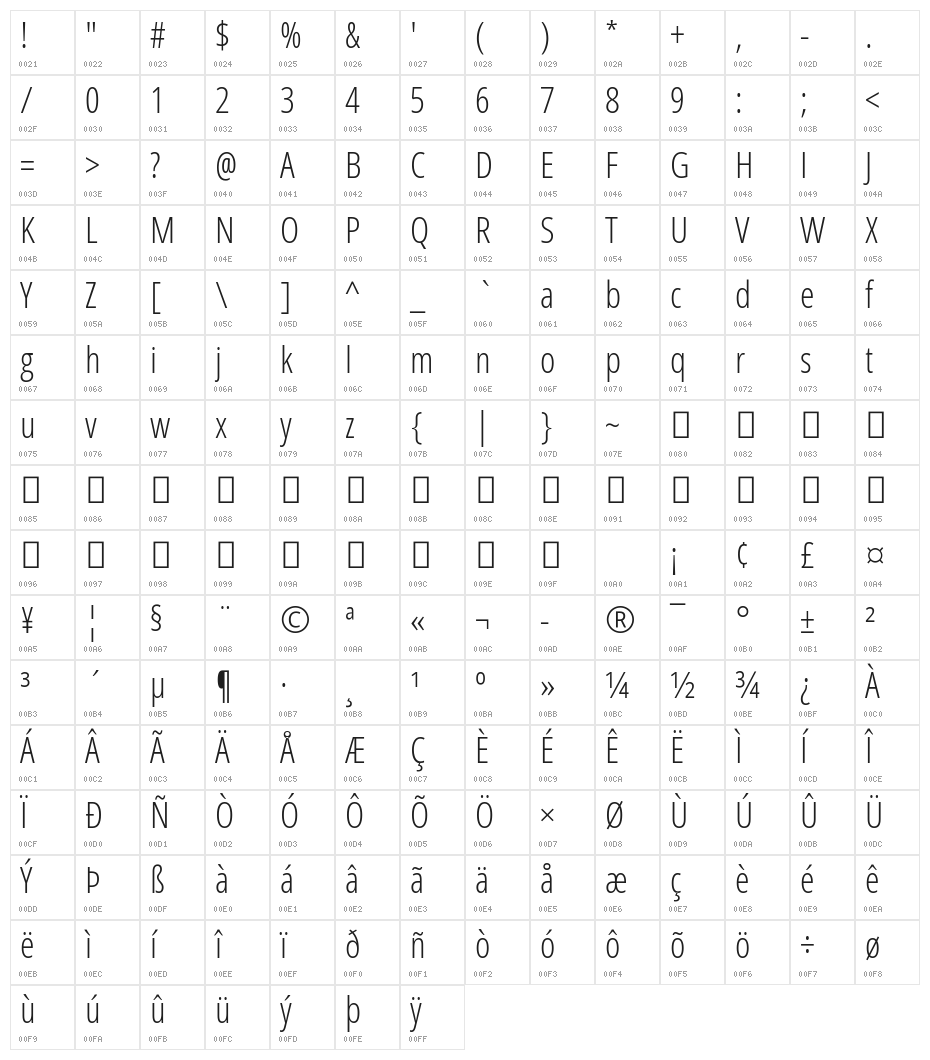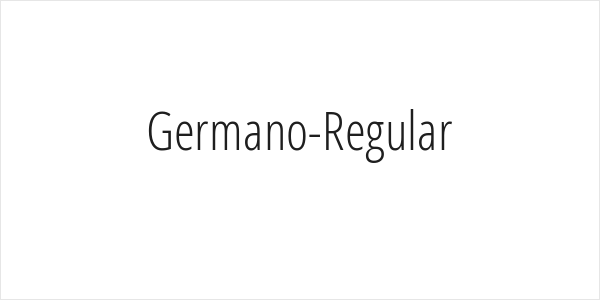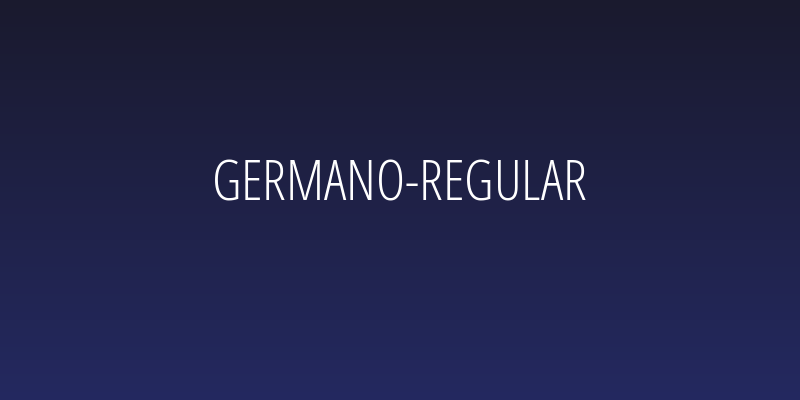
Germano-Regular Font
Germano-Regular Description
This font exhibits a clean and modern sans-serif style, characterized by its simplicity and readability. The letters are evenly spaced with a consistent stroke width, providing a balanced and harmonious appearance. The uppercase letters are tall and slightly narrow, while the lowercase letters maintain a uniform height, enhancing legibility. The numerals are clear and distinct, making them suitable for both text and numerical data. Special characters are well-defined, ensuring versatility in various contexts. Overall, this font's straightforward design makes it ideal for a wide range of applications.